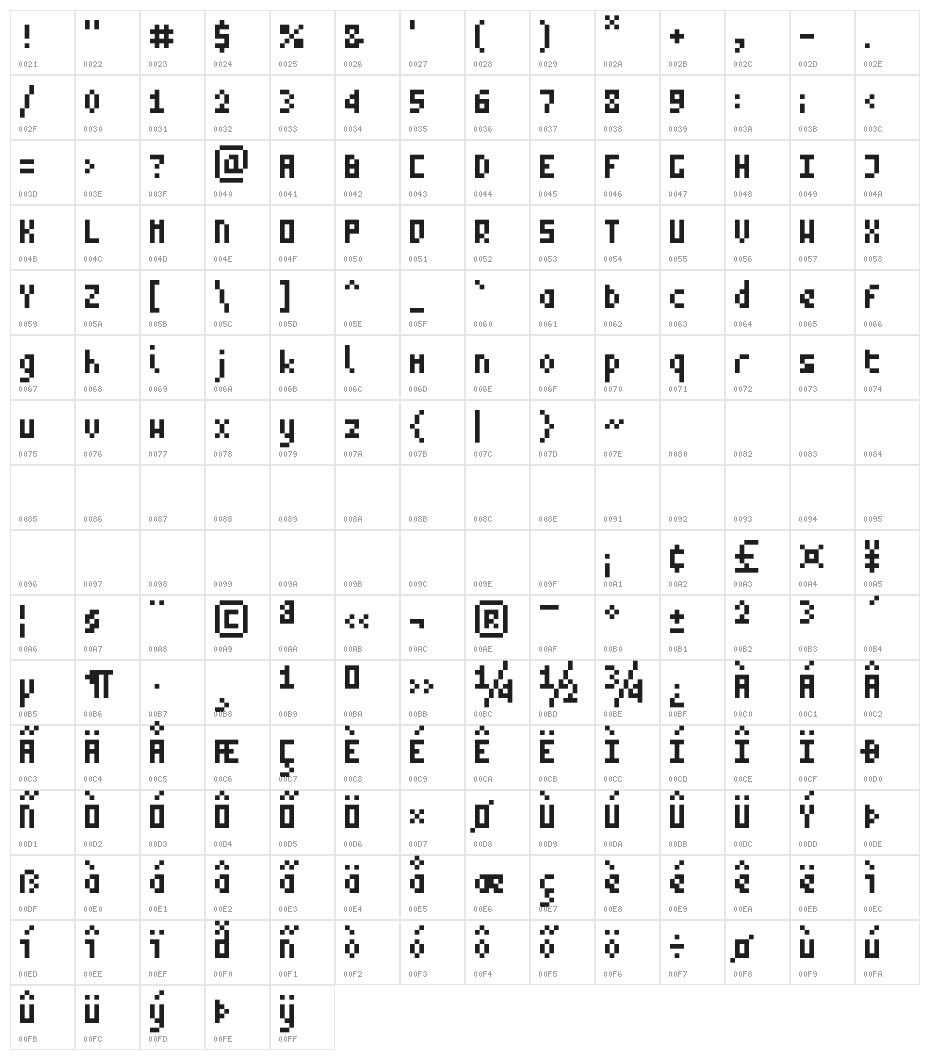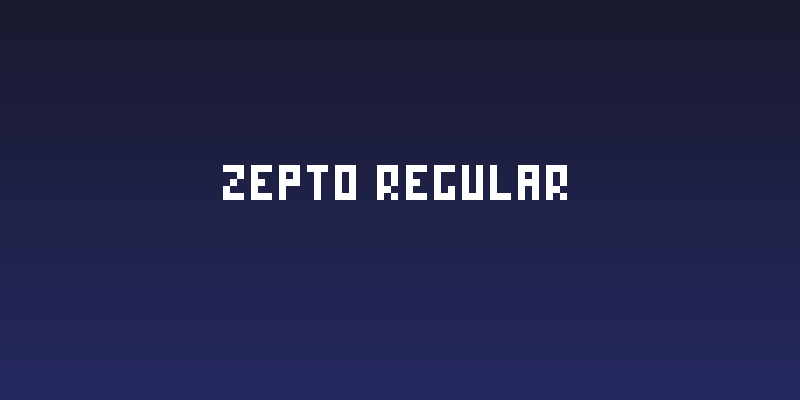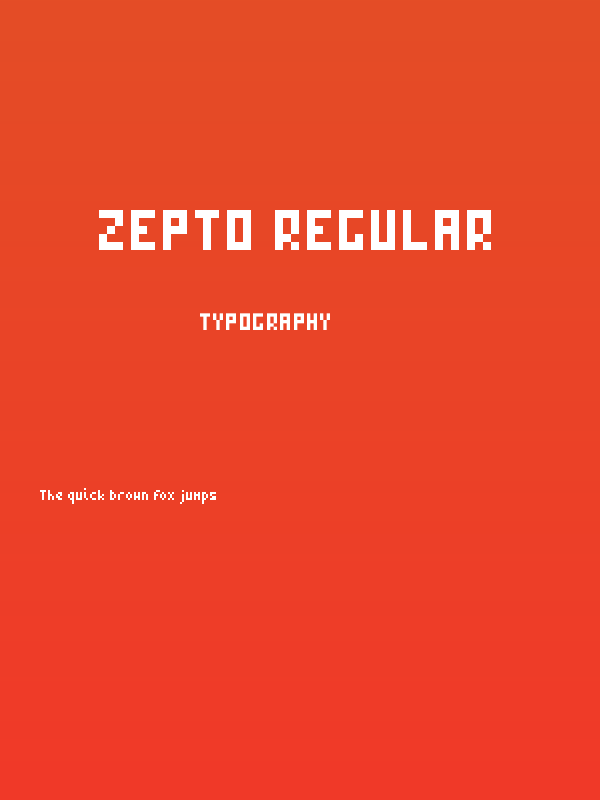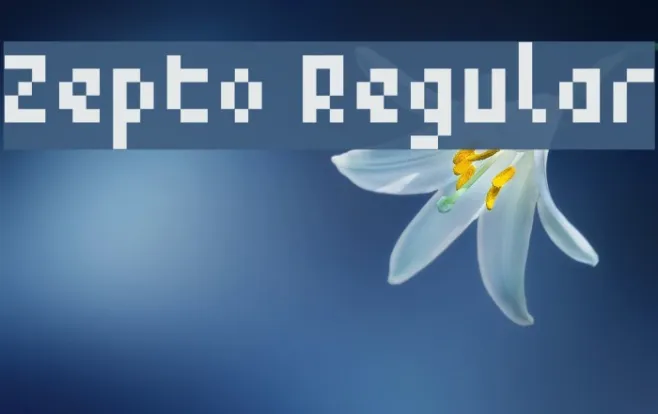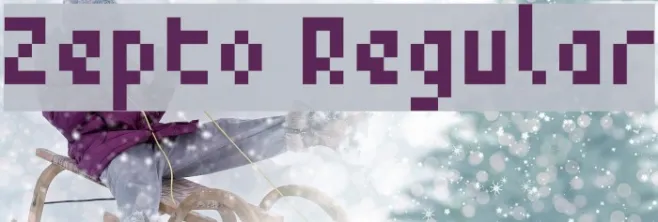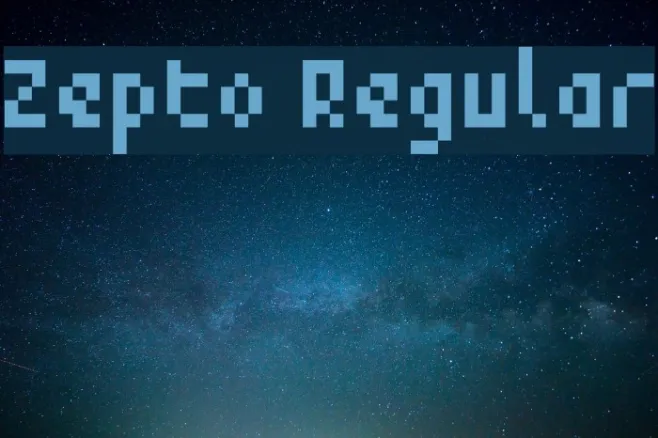
Zepto Regular Font
Zepto Regular Description
This font features a pixelated, blocky design reminiscent of early digital displays and retro video games. Each character is composed of uniform square pixels, giving it a distinctly digital and geometric appearance. The uppercase and lowercase letters maintain a consistent height, contributing to a monospaced feel, although the font is not strictly monospaced. The numbers and special characters follow the same pixelated style, ensuring a cohesive look across all glyphs. The font's simplicity and clarity make it highly legible, even at smaller sizes, while its unique style adds a nostalgic touch to any design.
| Overall Style | Retro, Digital |
| Use Case | Headlines, Logos, Digital Art |
| Proposed Projects | Ideal for retro-themed designs, video game graphics, digital art projects, and any creative work that seeks to evoke a sense of nostalgia for early computing. |